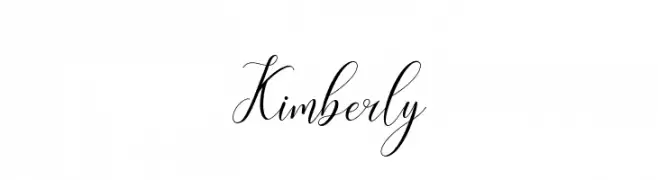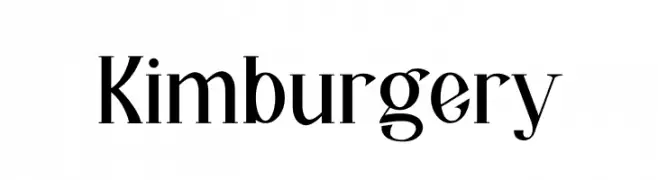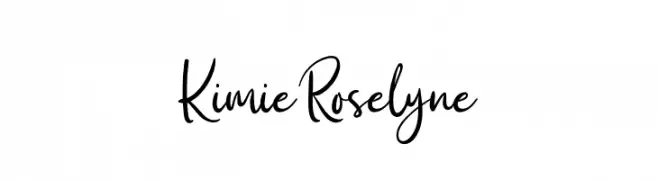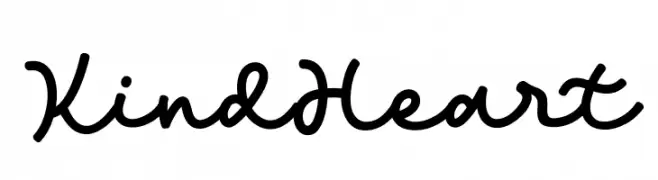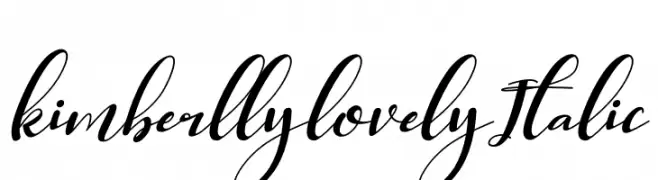
An elegant, flowing script font with a dynamic italic style.
An elegant, cursive font with flowing, sophisticated characters.
A playful handwritten font with tall, narrow letters and a whimsical style.
A modern serif font with high contrast and elegant curves.
A bold serif font with high contrast and elegant styling.
A lively, cursive handwritten font with elegant, flowing connections.
A playful and artistic handwritten font with dynamic strokes.
A playful, flowing script font with smooth, continuous strokes and rounded edges.
A playful handwritten font with a mix of slender uppercase and cursive lowercase letters.
A bold, textured brush script font with a dynamic and expressive style.